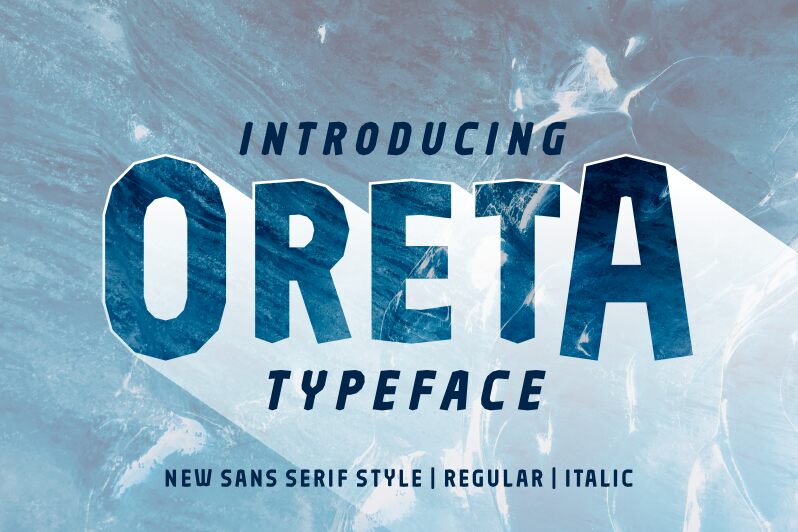
Oreta
Oreta is a bold, condensed display font that commands attention. Its striking letterforms exude a sense of strength and dynamism, with sharp edges and generous negative space that lend a modern industrial aesthetic. The condensed width creates a powerful, impactful visual impact, making Oreta an excellent choice for headlines, branding, and other high-visibility applications. Whether in print or digital media, Oreta's bold presence can elevate the visual identity of any project, from editorial layouts to packaging design.
Its distinctive style seamlessly bridges the gap between functional clarity and eye-catching flair, making it a versatile tool for designers seeking to make a lasting impression.